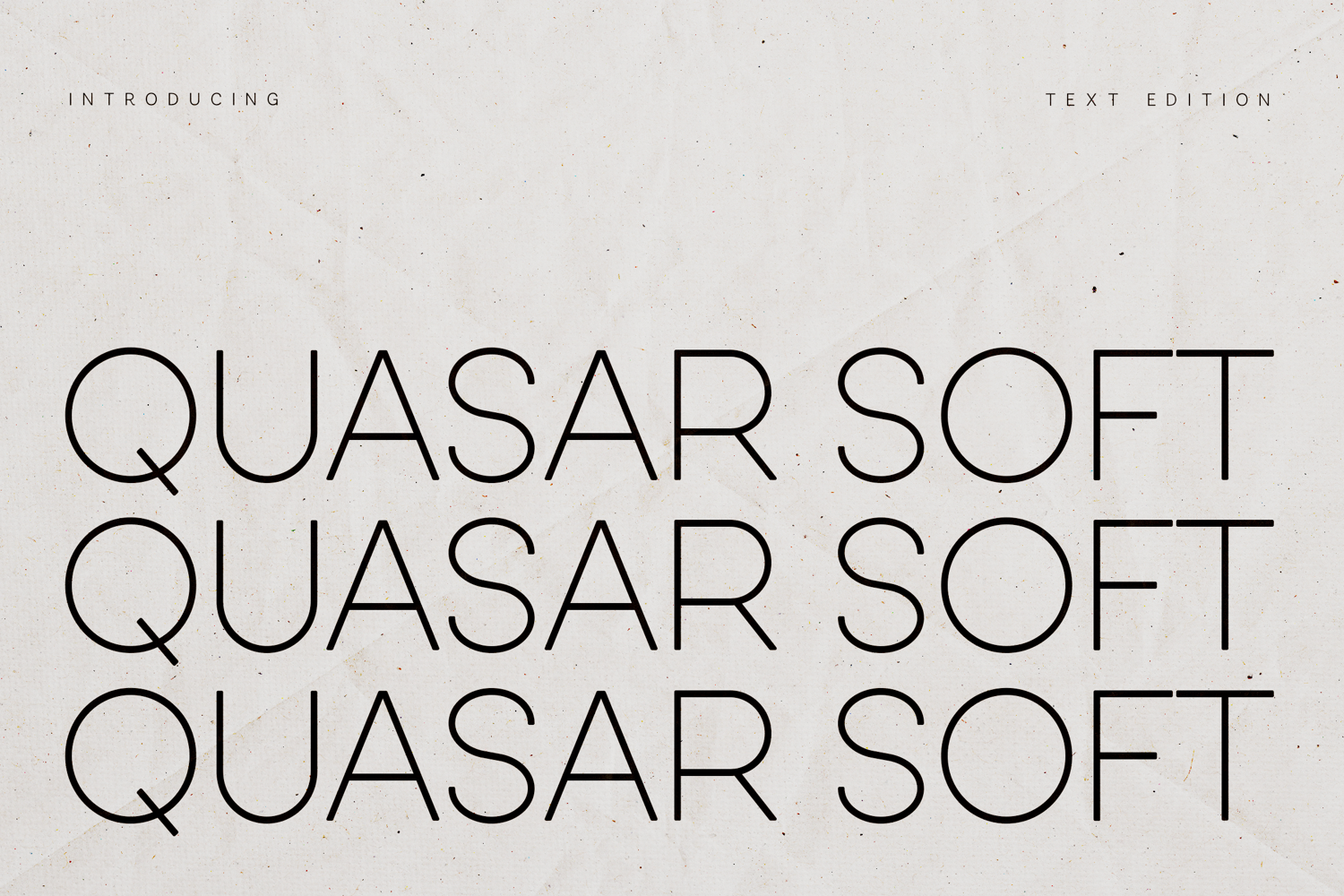
Quasar Soft Ultra Light Rounded Sans Serif Typeface
Quasar Soft is an ultra light rounded sans serif designed for modern branding, editorial layouts, and minimalist visual systems.
Built with clean geometric structure and softened terminals, it delivers a refined and contemporary look while maintaining warmth and clarity. Its airy spacing and delicate monoline strokes make it perfect for logos, packaging, fashion campaigns, wellness brands, sustainable products, and high-end presentations.
Quasar Soft balances precision and softness — ideal for designers who want elegance without heaviness.
Quasar Soft is carefully spaced and optimized for both print and digital use.